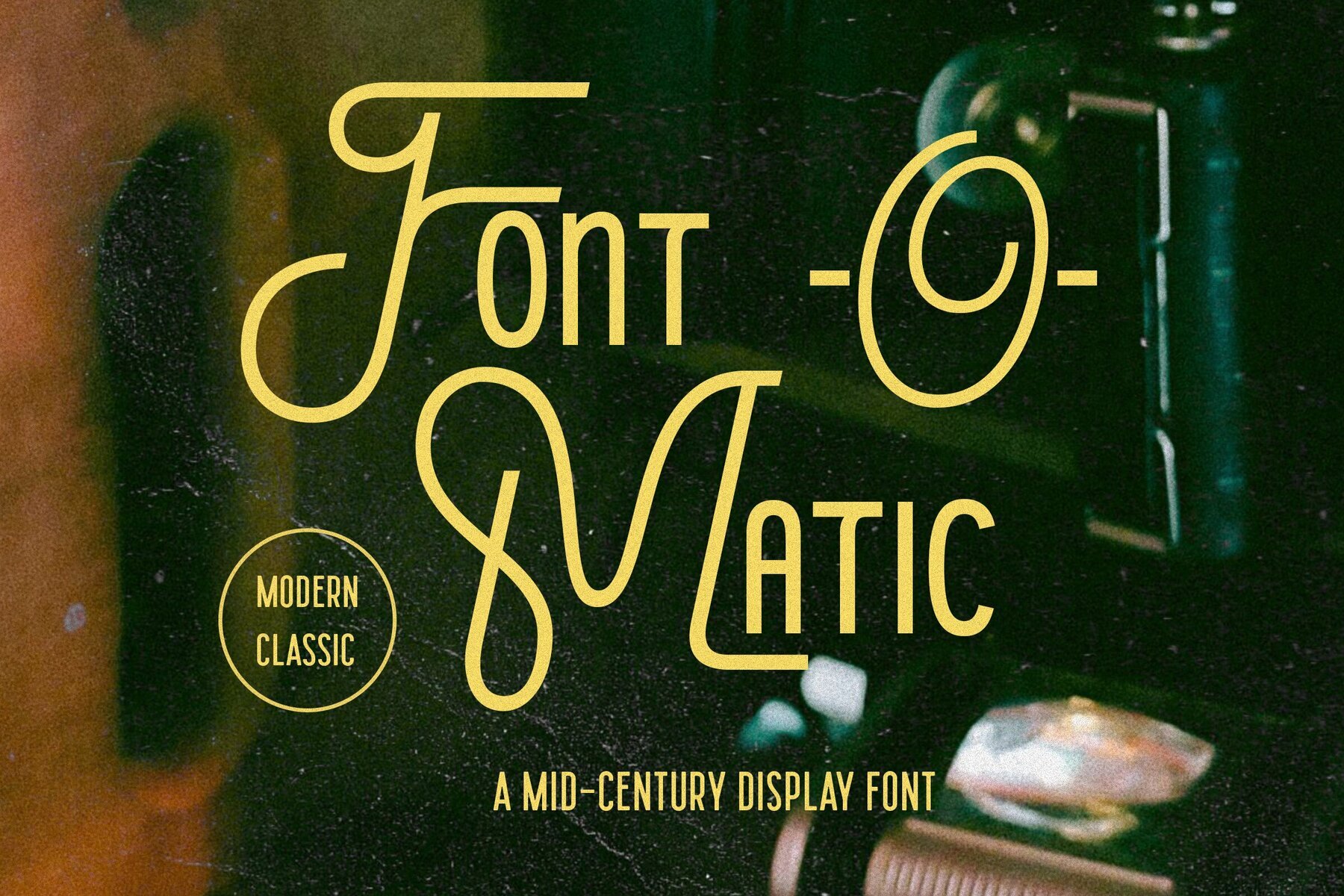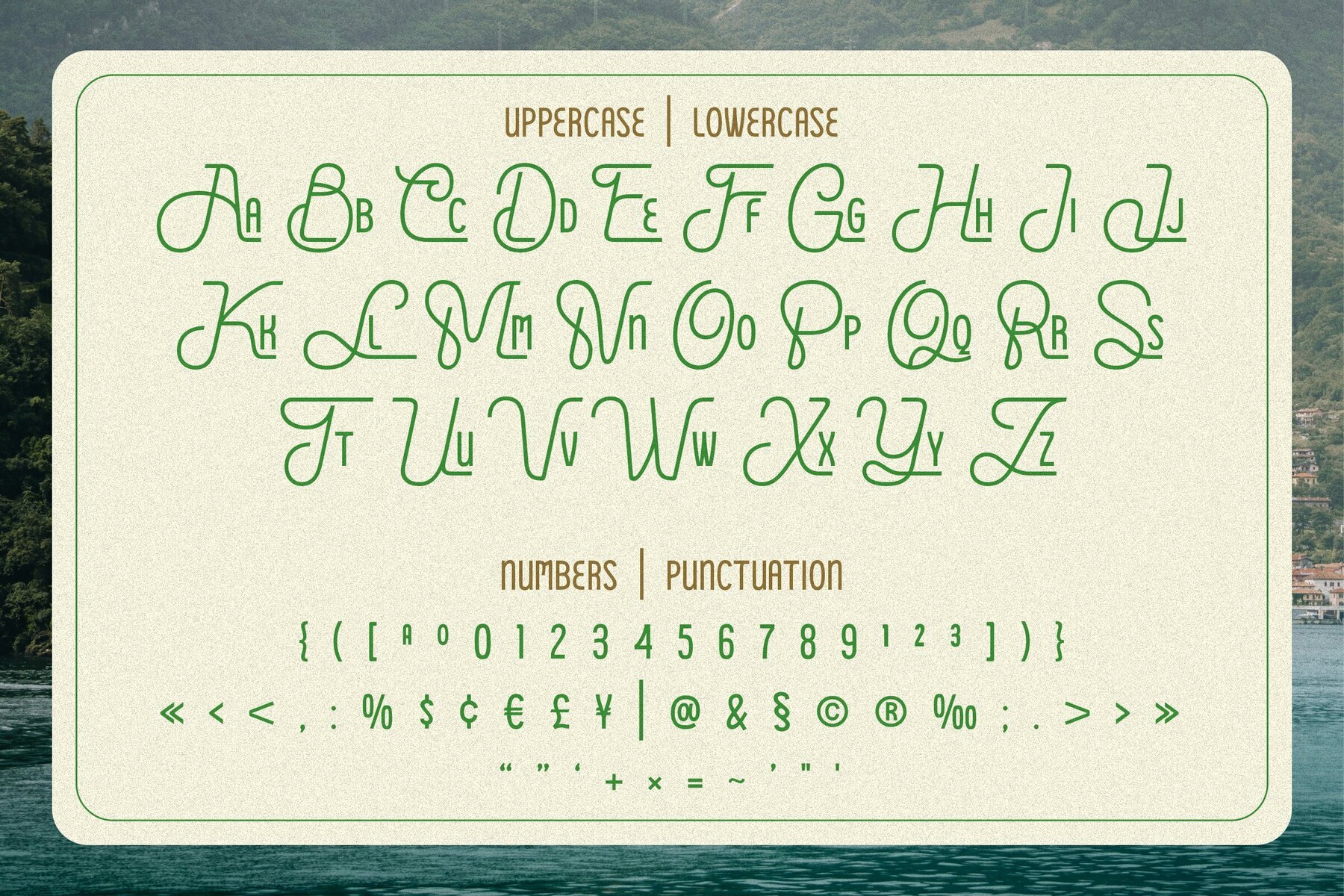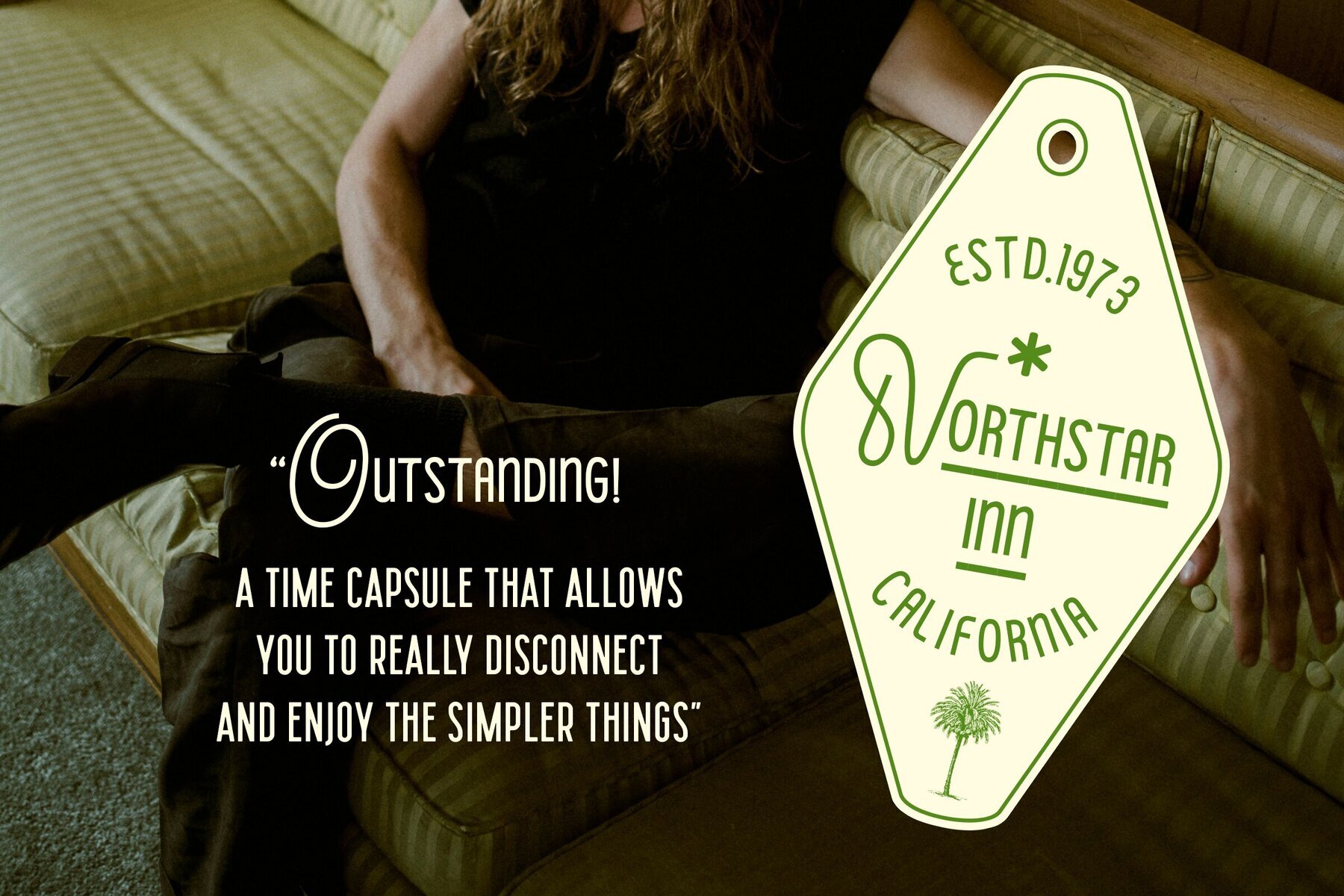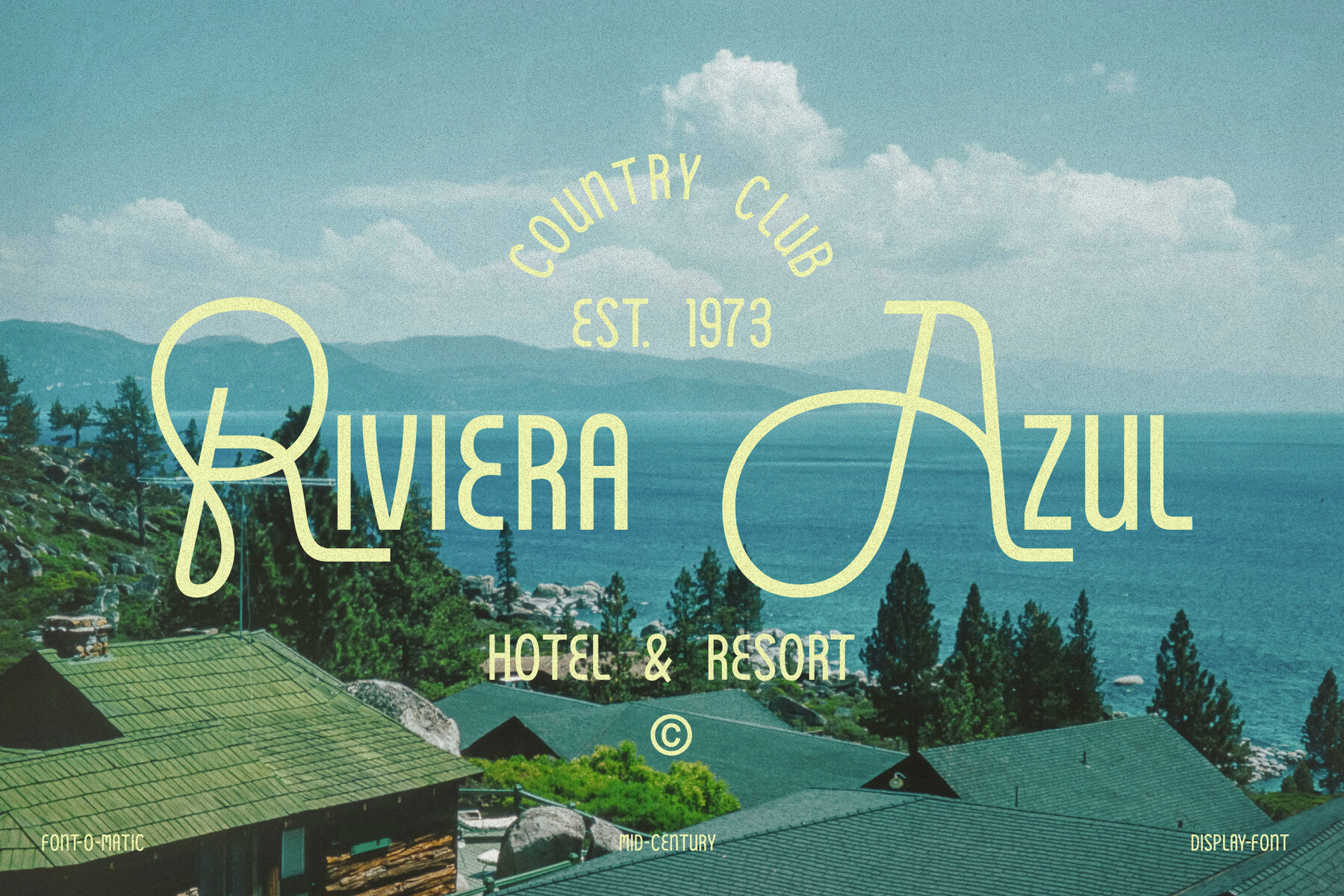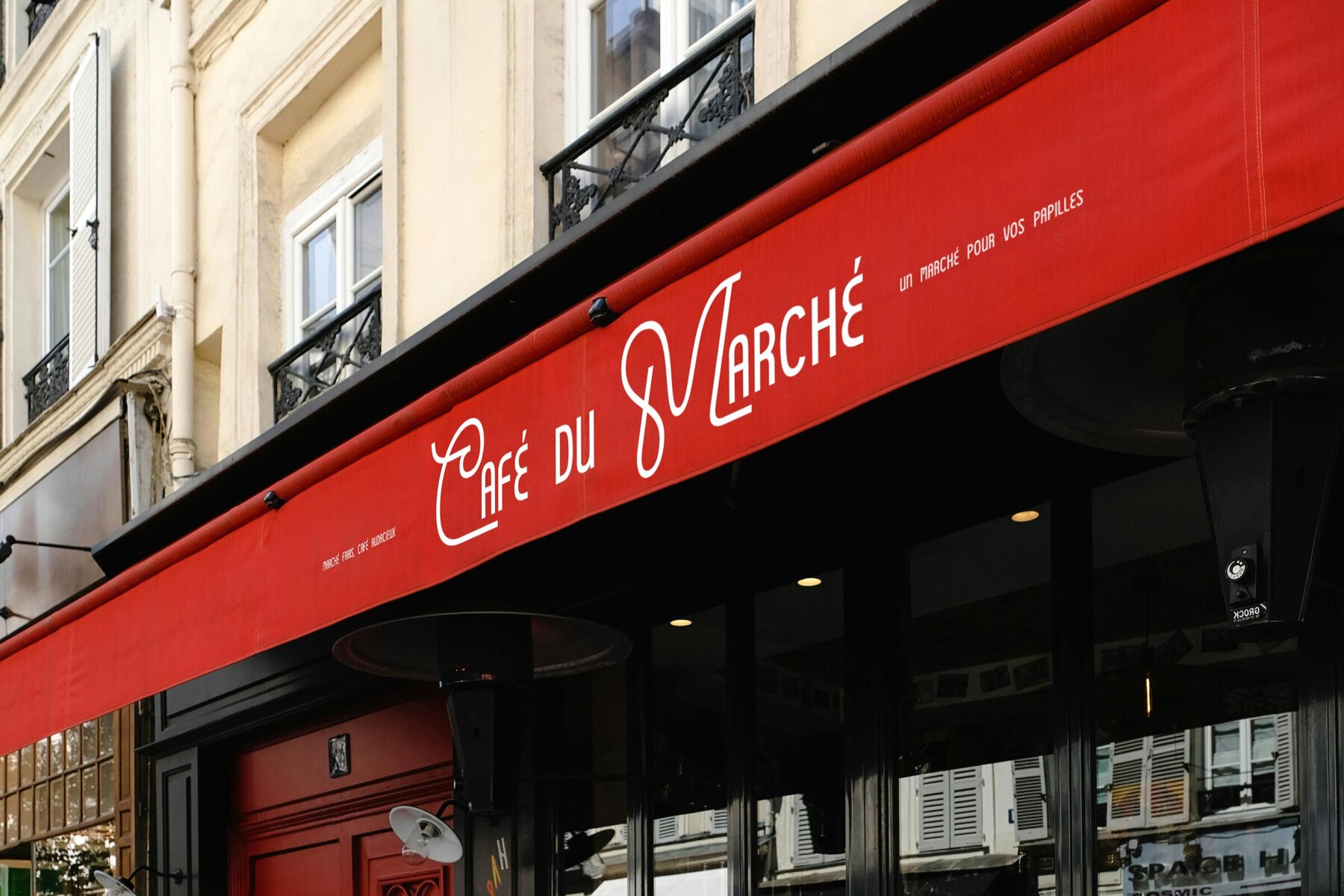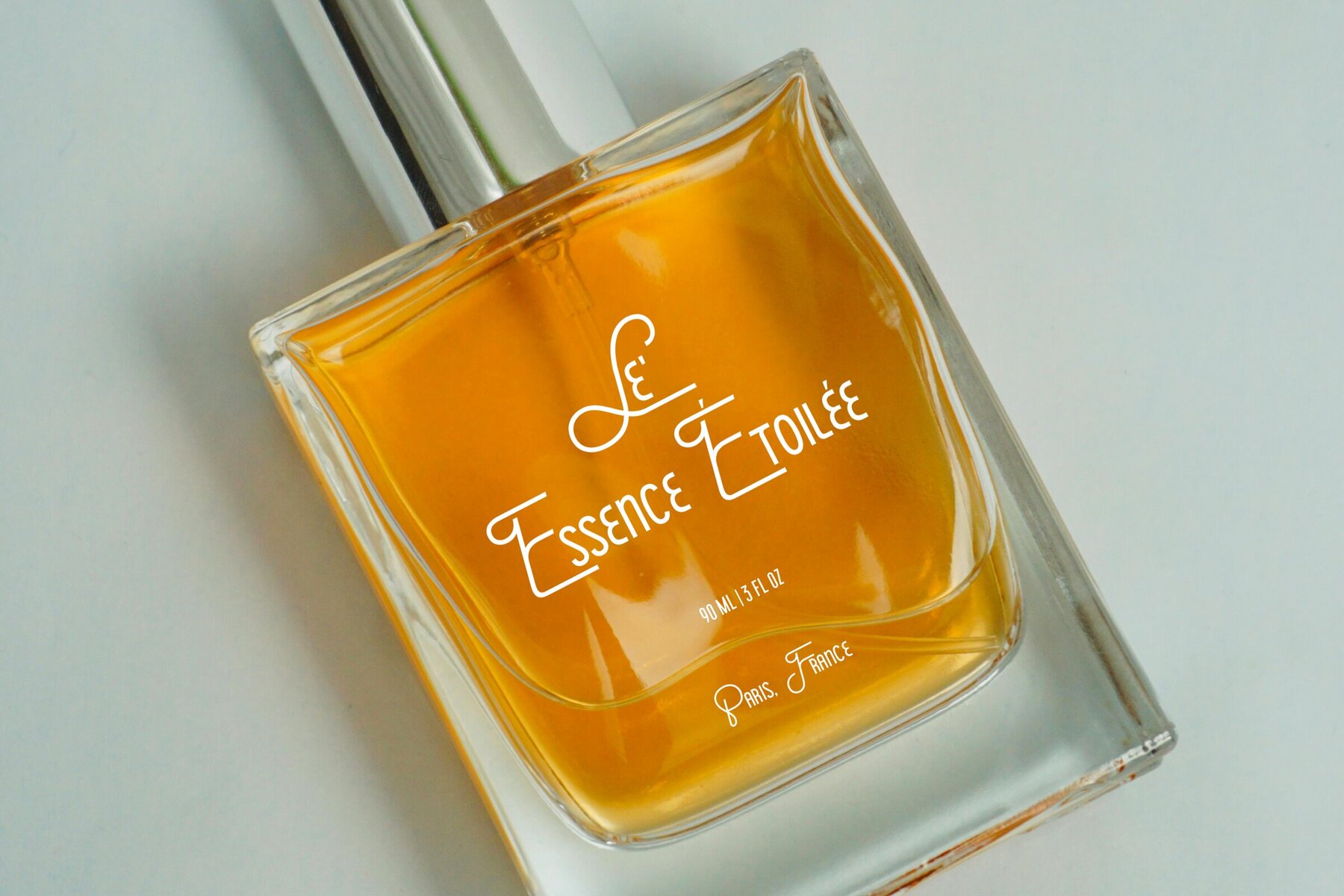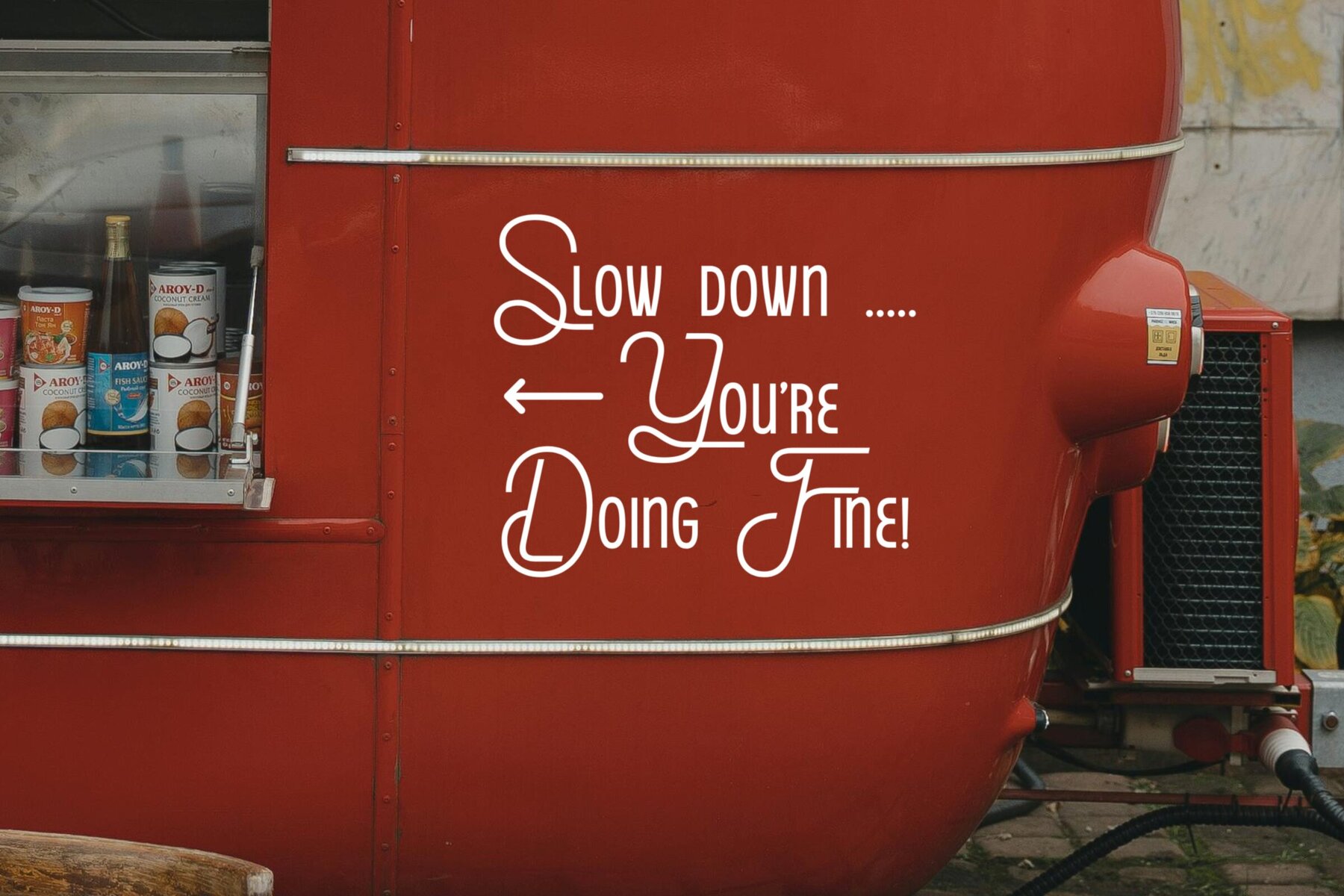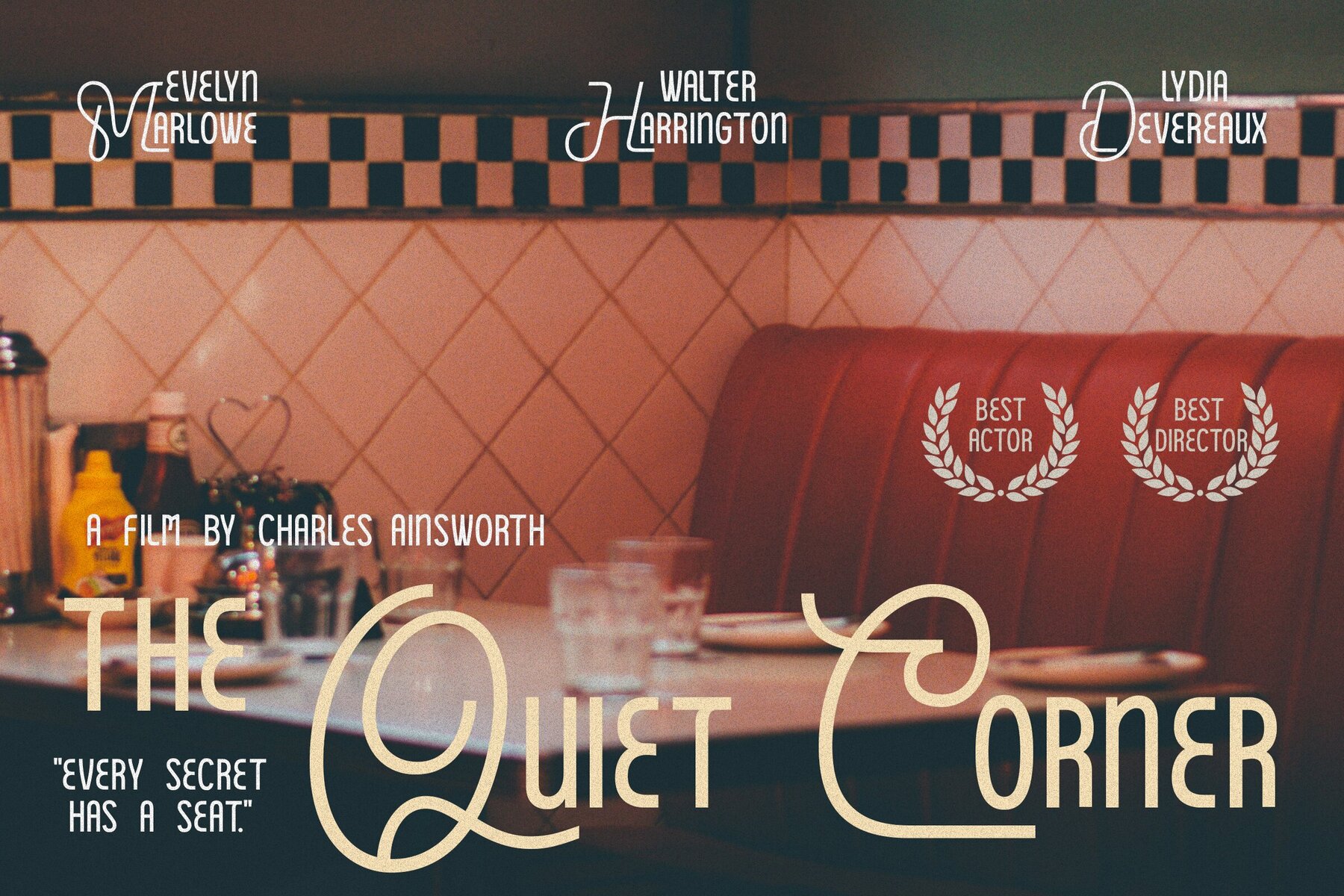
Font o Matic
Font o Matic Regular
Font-o-Matic is a retro-inspired display font. It features huge exaggerated capital characters and an all-caps lowercase character set. This stylish font is great for large display projects, branding elements, package designs, and much more!Font-o-Matic: Retro Display Font with Exaggerated Letters